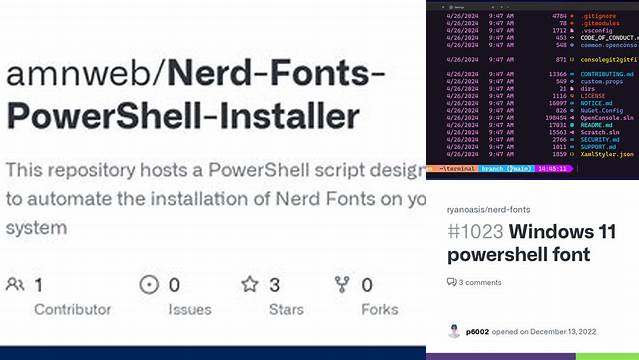
Hey guys, ever felt like your command line is a bit, well, boring? If you're spending a lot of time in Windows PowerShell and want to spice things up with some cool icons and better-looking text, then installing Nerd Fonts is totally the way to go. These aren't just any fonts; they're patched with a ridiculous amount of extra glyphs, including tons of icons from popular developer tools like Git, Docker, and powerline. This means when you see output in your terminal that uses these special characters, they'll actually show up as little icons instead of weird question marks. Pretty neat, right? It makes your terminal look way more professional and frankly, a lot more fun to use. So, let's dive into how you can get these awesome fonts up and running on your Windows machine using PowerShell. It's not as complicated as it might sound, and I'll break it down for you step-by-step.
Why Install Nerd Fonts on Windows Anyway?
Alright, so you're probably wondering, "Why should I bother with Nerd Fonts on my Windows machine?" Great question! Think about it: how much time do you actually spend in your terminal or command prompt? If you're a developer, sysadmin, or even just someone who likes to tinker, that number can be pretty high. Making that environment visually appealing and more informative can seriously boost your productivity and make the whole experience much more enjoyable. Nerd Fonts are specifically designed for this purpose. They take popular programming fonts – think Fira Code, Meslo, Hack, and others – and patch them with a massive collection of extra glyphs and icons. These icons come from popular developer tools and frameworks like Font Awesome, Devicons, Octicons, Material Design Icons, and many more. So, instead of seeing cryptic symbols or boxes when your tools try to display an icon (like a Git branch symbol or a Docker container icon), you'll see a clean, clear, and cool-looking icon. This visual enhancement isn't just about aesthetics; it adds a layer of immediate comprehension to your terminal output. For instance, when you're running scripts or using tools that integrate with these icon sets, the visual cues provided by Nerd Fonts can help you quickly identify statuses, file types, or actions without having to read through dense text. It's about making your command-line interface more intuitive and, let's be honest, way cooler. Plus, many Nerd Fonts come with ligatures, which is another fantastic feature for programmers. Ligatures are special combinations of characters that are merged into a single, more readable glyph. For example, common programming sequences like =>, !=, ===, or -> can be rendered as a single, streamlined symbol, making your code look cleaner and easier to scan. This is particularly helpful when you're staring at lines and lines of code. So, if you want a terminal that looks sharp, provides better visual feedback, and generally makes your workflow smoother, installing Nerd Fonts on Windows is a decision you won't regret. It's a simple change that has a surprisingly big impact on your daily computing experience, especially if your work involves a lot of command-line interaction. It transforms a utilitarian tool into something that feels more personalized and professional.
The Last Word on Making PowerShell Visually Appealing
So, as we wrap this up, guys, the last word on making PowerShell visually appealing? It's all about thoughtful customization, and Nerd Fonts are a cornerstone of that. They're not just about making things look pretty; they're about making your command line more functional and easier to understand at a glance. By incorporating icons for Git, file types, and other development tools, you create a richer, more intuitive interface. Coupled with features like ligatures for code readability and integration with powerful prompt themes like Starship or Oh My Posh, Nerd Fonts transform PowerShell from a basic text interface into a dynamic and informative workspace. The process we've outlined – from selecting and installing the font to configuring your terminal – is straightforward and well worth the effort. Don't underestimate the impact that a well-configured, visually enhanced terminal can have on your productivity and overall enjoyment of your work. So go ahead, install those Nerd Fonts, tweak your settings, and enjoy a PowerShell experience that’s as powerful and sleek as it can be. Happy coding and commanding!